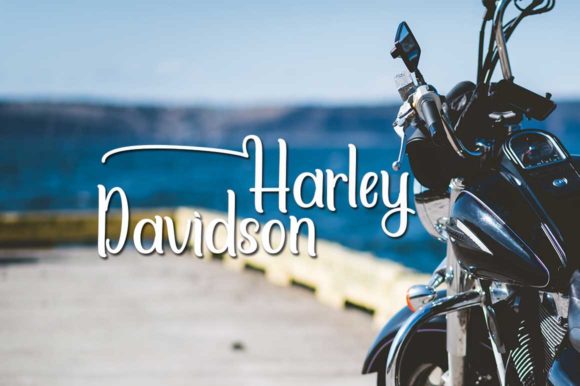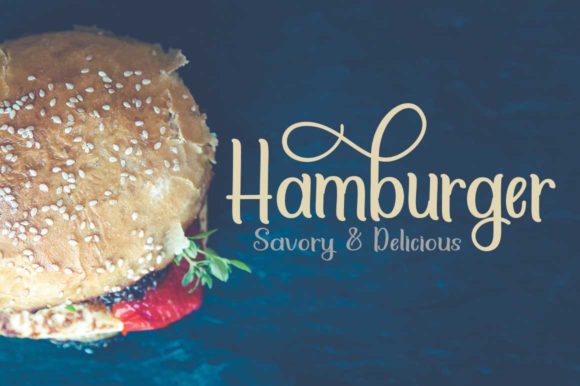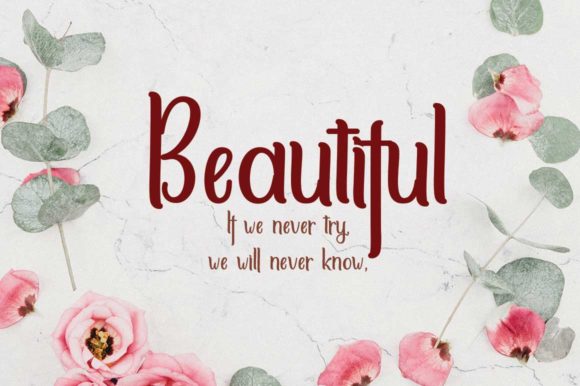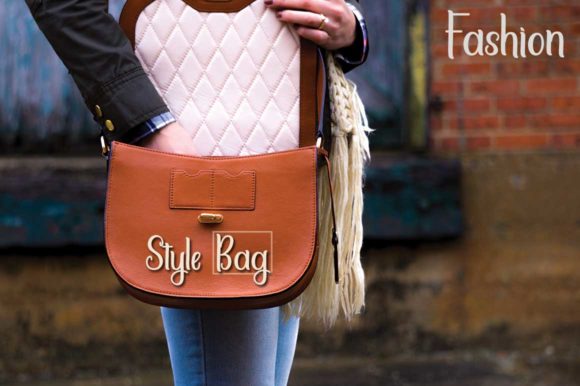
HomeScript FontsSittella Font Script Fonts Sittella Font FacebookXPinterestWhatsApp Sittella Font Poster 2 Sittella Font Poster 3 Sittella Font Poster 4 Sittella Font Poster 5 About Sittella Font Sittella is a stunning handwritten font with a beautiful feel. Use it to turn any design project into a stand out! DOWNLOAD ON CREATIVE FABRICAThis font is sold and delivered by Creative Fabrica. Font Canyon may earn a commission if you buy through this link. People also explored Rodista Font Lady Font Decor Tag Font Font Plutoin Baff Font Diary Book Font A Monogram Font Kirgina Font Benetti Grotesk Font Sukiyaki Font 336 0 TagsSittella Font Previous articleCreative Mommy FontNext articleVelourian Font LEAVE A REPLY Cancel reply Comment: Please enter your comment! Name:* Please enter your name here Email:* You have entered an incorrect email address! Please enter your email address here Website: Save my name, email, and website in this browser for the next time I comment. Personal Use Free Where the Cookies Personal Use Free Read more about this font Pumpkin Type Halloween Font Personal Use Free Read more about this font Charletto Personal Use Free Read more about this font Diland Personal Use Free Read more about this font BLOG How to Cut Any Font on Cricut: Convert a Font to SVG (Free) Turn any font into a clean SVG so it cuts crisp on Cricut - a quick 3-step workflow using a free font-to-SVG tool. Where to Buy American Fonts Online in 2024 Using Fonts in Digital Marketing: Tips to Strengthen Your Brand Identity How to Install and Use Fonts on Windows, macOS, and Web Projects